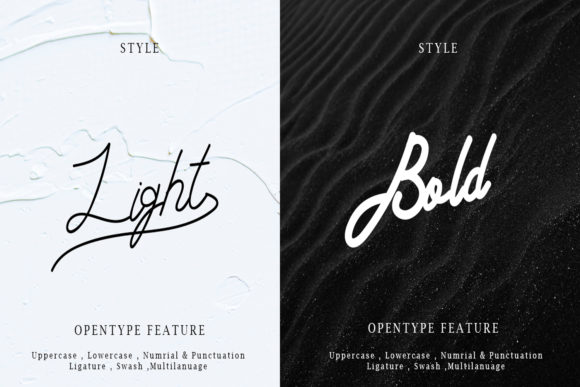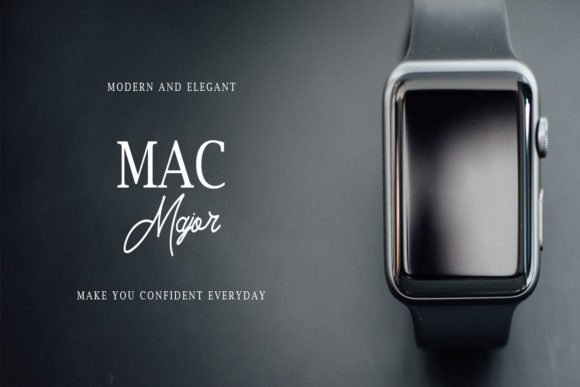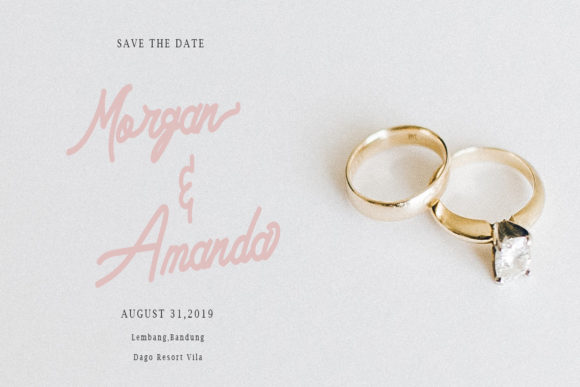
Introduction to Laravel Font
Laravel is an elegant and charming handwritten font with a simple twist.
Get inspired by its authentic charm .
Key Features of Laravel Font
Why Choose Laravel Font?
Laravel Font offers exceptional quality and versatility, making it a valuable addition to your design toolkit. Whether you’re creating for personal projects or commercial use, Laravel Font delivers professional results.